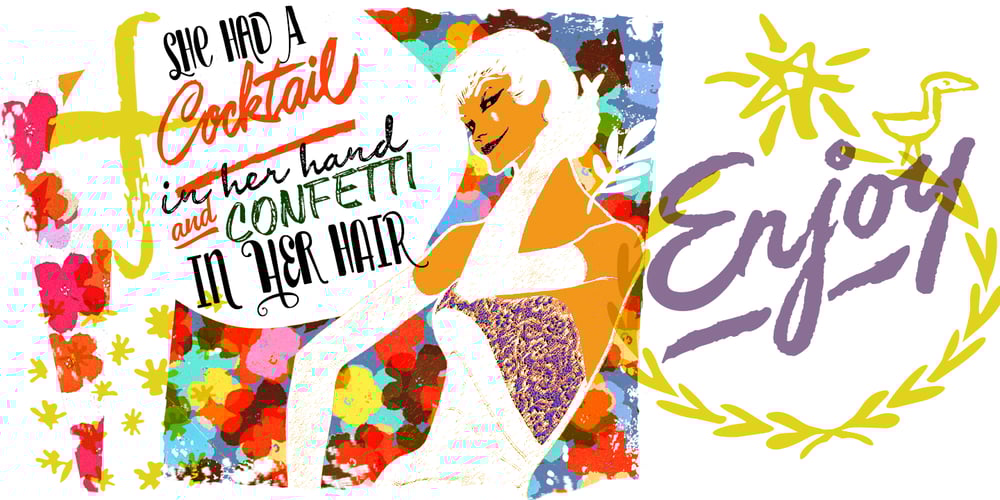
Enjoy
Enjoy font
Enjoy Font Family was designed by Carlos Fabián Camargo Guerrero and published by Andinistas. Enjoy contains 6 styles and family package options. Enjoy is a font family designed by CFCG. Its 5 fonts work in groups or independently. When used to complement illustrations or spontaneous projects requiring organic fonts, in Enjoy you will find expressive attributes reflected in uppercase, lowercase and numbers written with brush and fluid ink. Its strategies were carefully written providing greater handcrafted realism in its bonds and alternatives to create with eloquent letters at the beginning, middle or end of the word without losing order and readability. Enjoy contains many special textures to maximize its typographical benefits activating opentype buttons. Enjoy contains an authentic worn texture reflected in a variety of alternate characters and ligatures. Due to its maximum and coordinated cursive logic, captivates the interest in graphic design or advertising for cafeterias, sales of plants, bakeries, etc. When complement illustrations or spontaneous projects requiring organic fonts, with Enjoy you will find expressive attributes reflected in uppercase, lowercase and numbers written with brush and fluid ink.